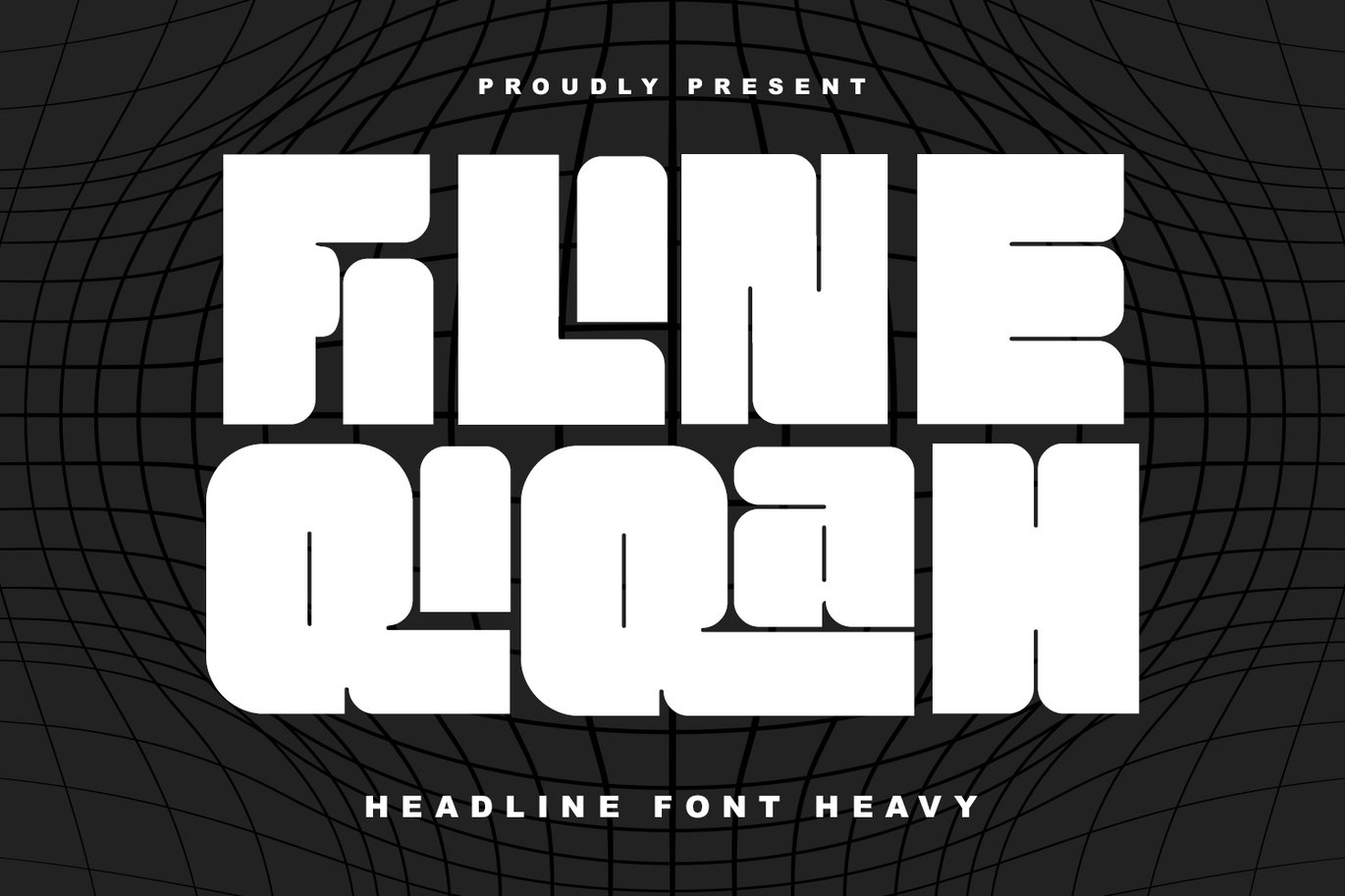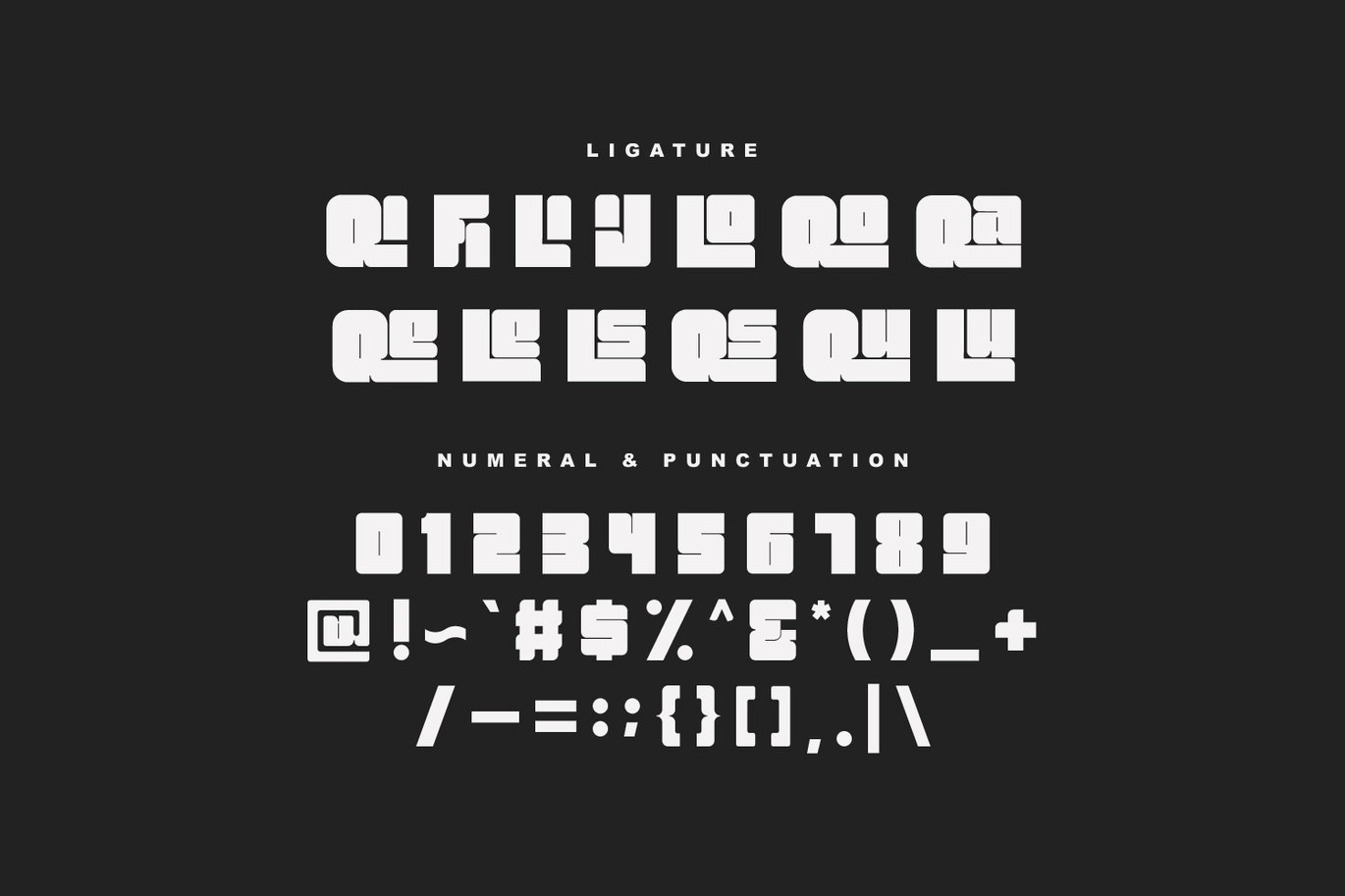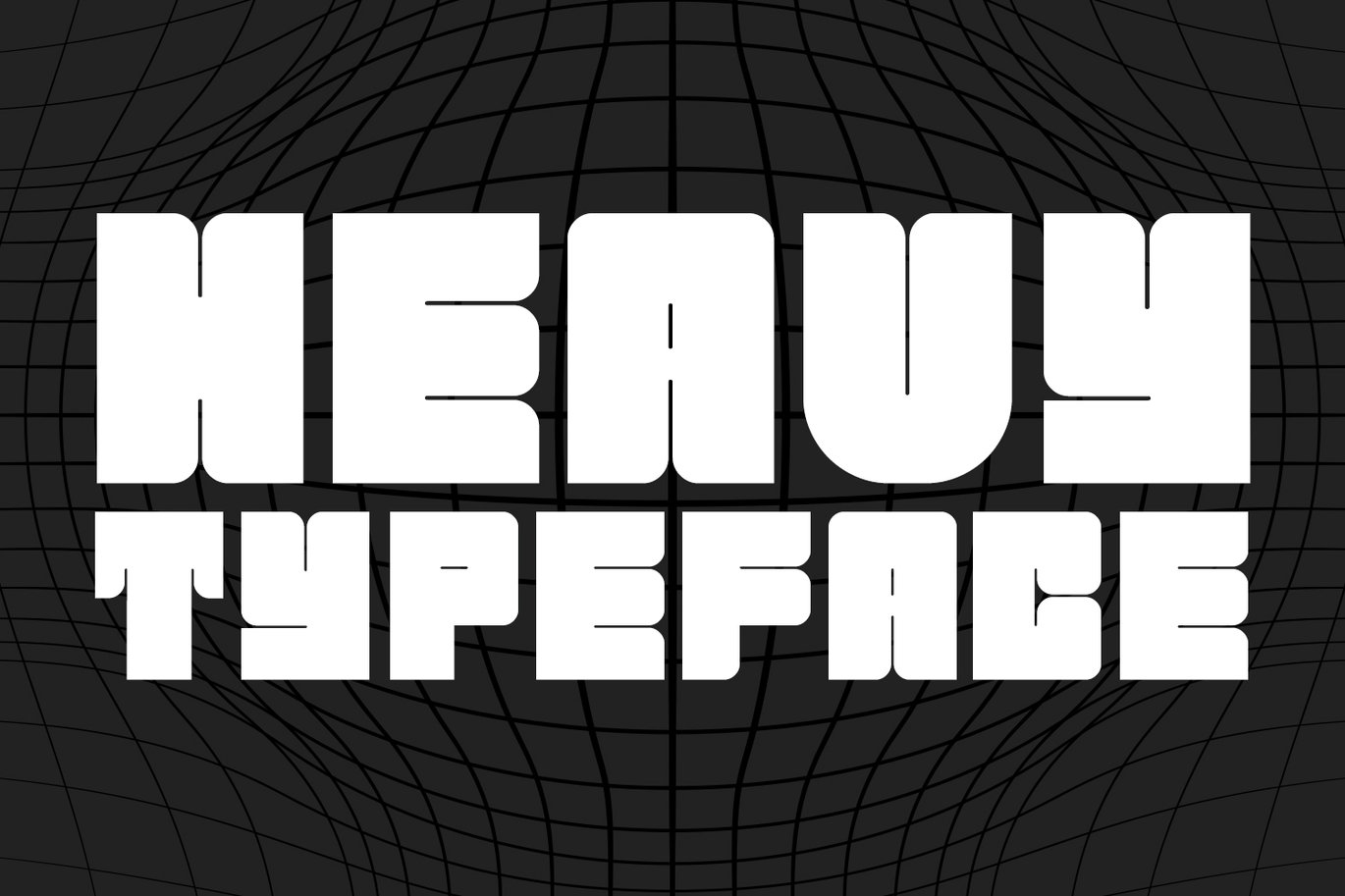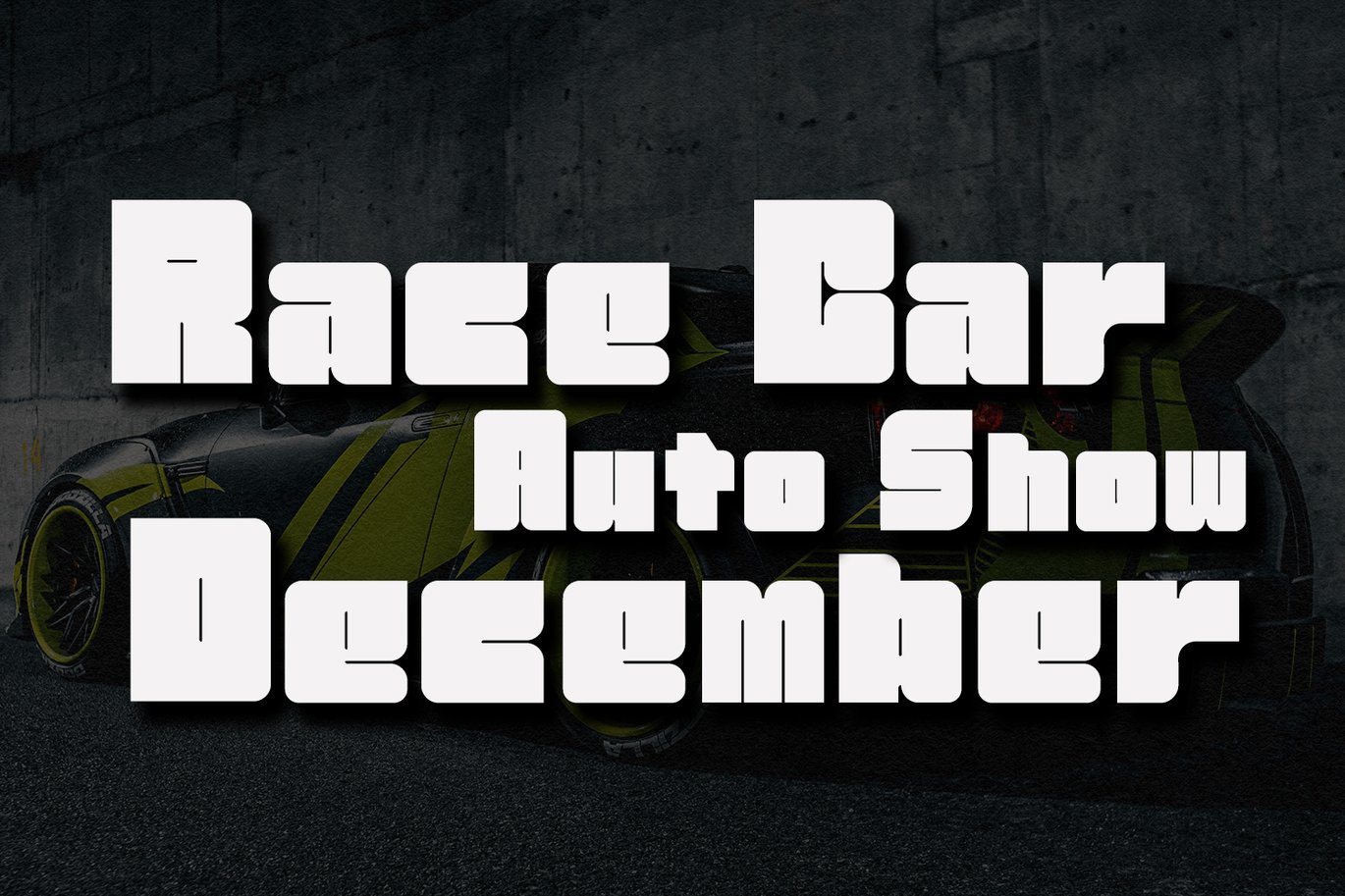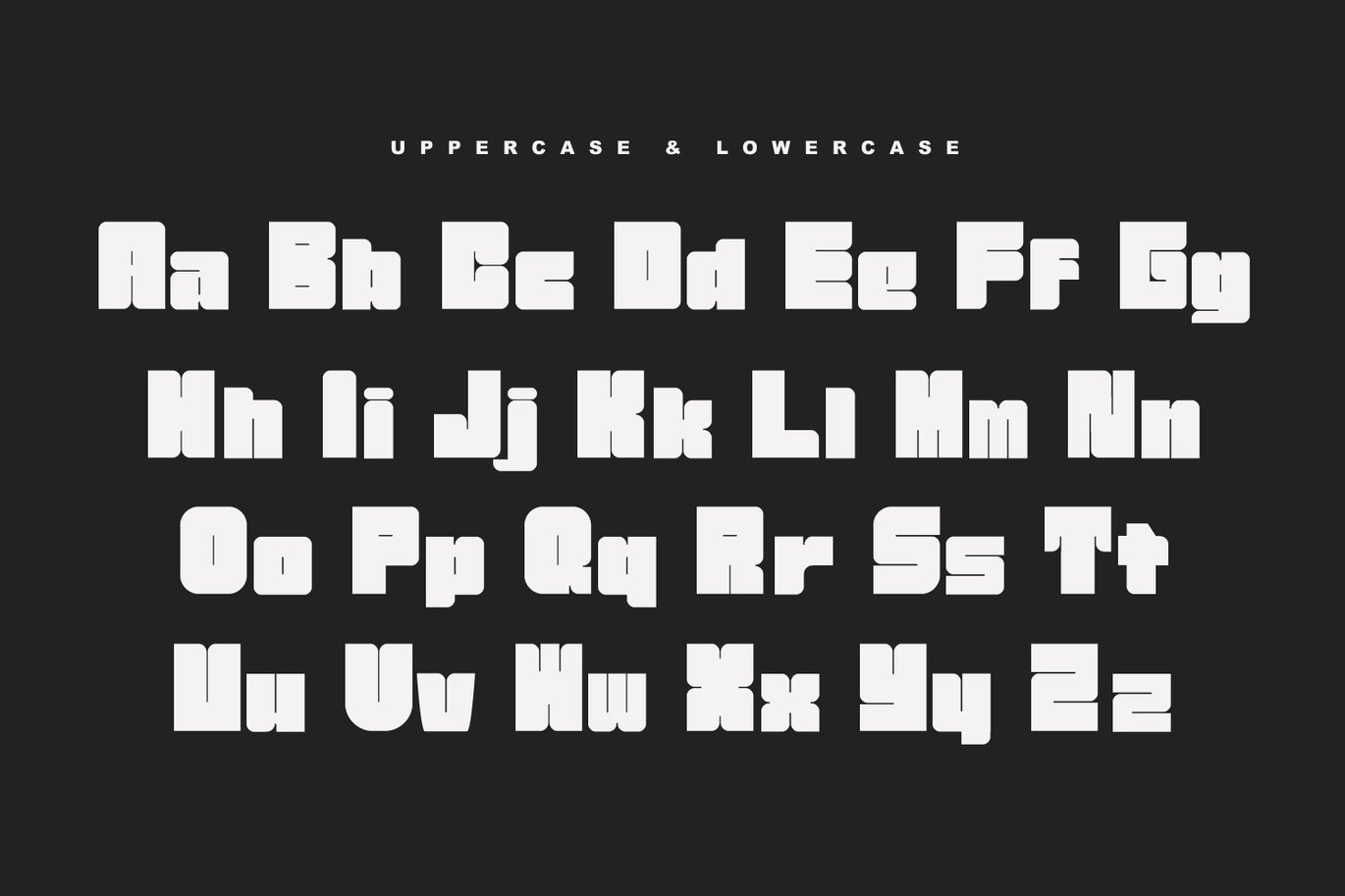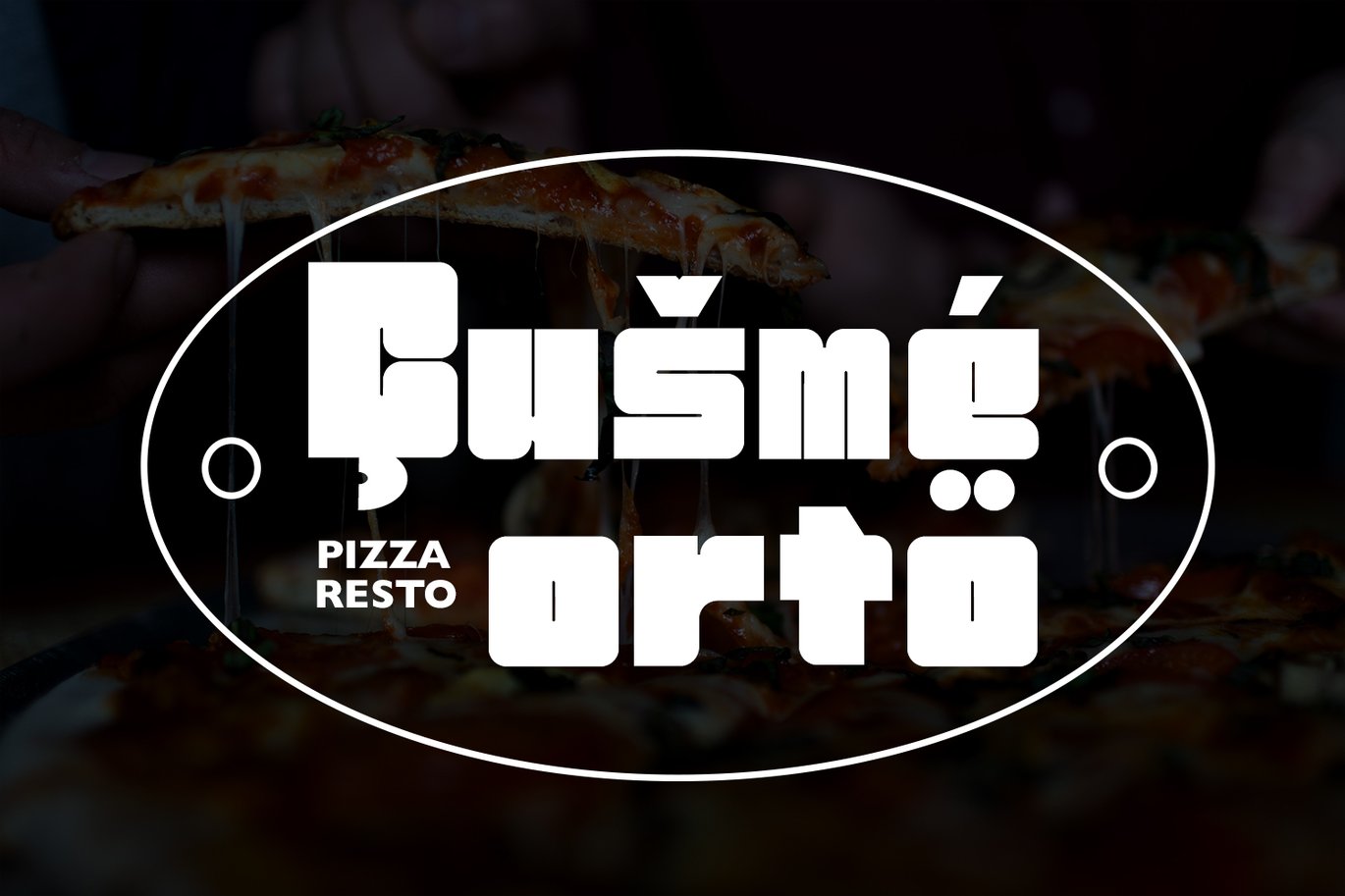
Filine Qiqah Heavy Sans Serif Font
Filine Qiqah heavy sans serif font. With bold stroke, fun character with a bit of ligatures. To give you an extra creative work. Filine Qiqah heavy sans serif font support multilingual more than 100+ language. This font is good for logo design, Social media, Movie Titles, Books Titles, a short text even a long text letter and good for your secondary text font with script. Make a stunning work with Filine Qiqah heavy sans serif font.